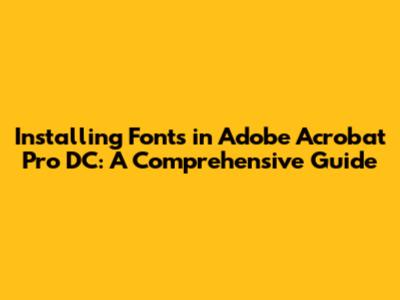
Install Fonts In Adobe Acrobat Pro DC: A Quick Guide
Hey guys! Ever wondered how to get those fancy fonts you downloaded into Adobe Acrobat Pro DC? You're in the right place! This guide will walk you through everything you need to know about installing fonts so you can create stunning, professional-looking documents. Let's dive in!
Why Install Fonts in Adobe Acrobat Pro DC?
Before we get started, let's talk about why you might want to install new fonts in Acrobat Pro DC. Fonts play a crucial role in the visual appeal and readability of your documents. The right font can make your content more engaging, emphasize important information, and create a professional look. Whether you're designing a marketing brochure, creating a report, or filling out a form, having the right font can make all the difference. For example, a clean and modern sans-serif font might be perfect for a business proposal, while a more decorative script font could add a touch of elegance to an invitation. Plus, if you're collaborating with others who use specific fonts, installing those fonts ensures that your documents display correctly on their computers.
When you install fonts into Adobe Acrobat Pro DC, you are expanding the creative possibilities available to you. The default set of fonts might be adequate for basic tasks, but they often lack the variety and personality needed for more specialized projects. By adding new fonts, you can tailor your documents to match your brand identity, express your unique style, and capture the attention of your audience. Think of fonts as the voice of your document—they communicate not just the words but also the tone and feeling behind them. So, if you want to make a lasting impression, investing in a diverse collection of fonts is a smart move. Moreover, certain professions, such as graphic design, marketing, and publishing, often require the use of specific fonts for branding or compliance purposes. Having these fonts readily available in Acrobat Pro DC can streamline your workflow and ensure consistency across all your projects.
Additionally, installing fonts can help you overcome compatibility issues. Sometimes, when you open a PDF document, you might see strange characters or distorted text because the document uses fonts that are not installed on your system. By installing the missing fonts, you can ensure that the document displays correctly and that you can view and edit it as intended. This is particularly important when working with documents created by others or when sharing documents with people who might not have the same fonts installed as you do. In summary, installing fonts in Adobe Acrobat Pro DC is not just about aesthetics; it's also about functionality, compatibility, and professional communication. Whether you're a seasoned designer or a casual user, expanding your font library can greatly enhance your document creation experience. So, let's get to the how-to part and make sure you can take full advantage of these benefits!
Step-by-Step Guide to Installing Fonts
Okay, let’s get down to the nitty-gritty. Here’s how to install fonts on your system, which will then make them available in Adobe Acrobat Pro DC:
1. Download the Font Files
First things first, you need to get your hands on the font files. You can find fonts from various sources online, such as Google Fonts, Adobe Fonts, or other font marketplaces. Make sure you download the font files in a compatible format, such as .ttf (TrueType Font) or .otf (OpenType Font).
When downloading fonts, always ensure that you are sourcing them from reputable websites. There are many websites that offer free fonts, but not all of them are safe. Some may contain malware or viruses that can harm your computer. Before downloading, check the website's reputation, read user reviews, and scan the downloaded files with an antivirus program. Trustworthy sources like Google Fonts and Adobe Fonts are generally safe, as they have security measures in place to protect users. Additionally, be aware of the licensing terms of the fonts you download. Some fonts are free for personal use but require a commercial license for business purposes. Using a font without the appropriate license can lead to legal issues, so it's essential to understand the terms before incorporating a font into your projects.
Once you've found a reliable source and downloaded the font files, keep them organized. Create a dedicated folder on your computer for your fonts to make them easier to manage and locate in the future. This will also help you keep track of which fonts you have installed and which ones you still need to install. Remember, the more fonts you have, the more important it becomes to stay organized. Consider using descriptive names for your font folders and subfolders to quickly identify the type of fonts they contain. For example, you might have folders for "Serif Fonts," "Sans-Serif Fonts," "Script Fonts," and so on. By maintaining a well-organized font library, you can save time and effort when searching for the perfect font for your next project. So, take a few extra minutes to set up a system that works for you—it will pay off in the long run.
2. Install the Fonts on Your Operating System
The way you install fonts depends on your operating system. Here’s how to do it on Windows and macOS:
On Windows:
- Locate the Font Files: Go to the folder where you saved the font files.
- Right-Click and Install: Right-click on the .ttf or .otf file and select "Install". You might need administrator privileges to do this.
- Restart Applications: Close and reopen Adobe Acrobat Pro DC (and any other applications) to make sure the new fonts appear.
On macOS:
- Open Font Book: Double-click the .ttf or .otf file. This will open the Font Book application.
- Install Font: Click the “Install Font” button at the bottom of the Font Book window.
- Restart Applications: Close and reopen Adobe Acrobat Pro DC (and any other applications) to make sure the new fonts appear.
After installing the fonts, it’s a good idea to verify that they have been installed correctly. On Windows, you can check the Fonts folder in the Control Panel to see if the new fonts appear in the list. On macOS, you can use the Font Book application to view all installed fonts. If the fonts are not showing up, try restarting your computer. Sometimes, the operating system needs a reboot to fully recognize the new fonts. Additionally, make sure that the font files are not corrupted. If you downloaded them from the internet, try downloading them again from a different source to ensure that you have a complete and valid copy. Once you've confirmed that the fonts are properly installed, you can move on to using them in Adobe Acrobat Pro DC. This involves selecting the desired font from the font menu in the application and applying it to your text. Remember, the key to a successful font installation is to follow the steps carefully and to double-check that everything is working as expected. With a little patience and attention to detail, you'll be able to expand your font library and create stunning documents with ease.
3. Verify the Installation in Adobe Acrobat Pro DC
Now, let’s make sure Acrobat Pro DC sees your new fonts:
- Open Acrobat Pro DC: Launch the application.
- Create or Open a Document: Start a new document or open an existing one.